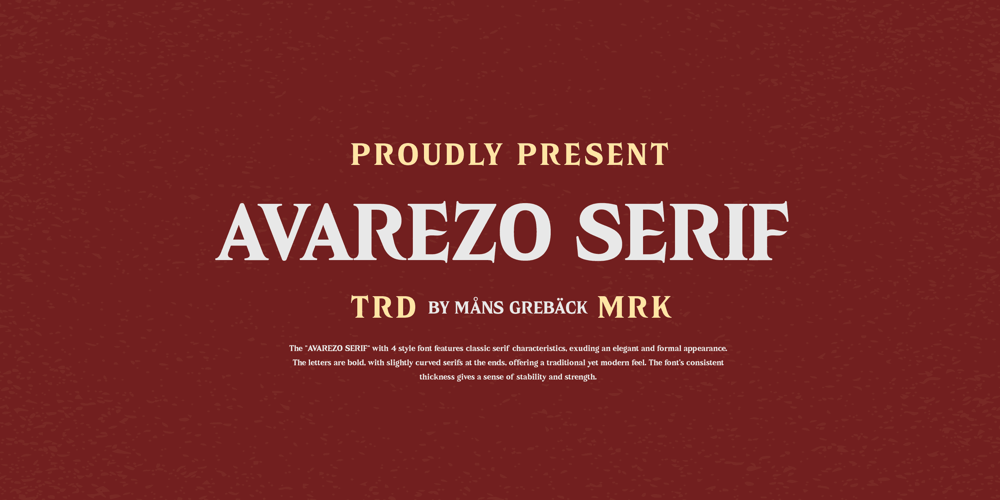
Avarezo Serif Font Family was designed by Måns Grebäck and published by Mans Greback. Avarezo Serif contains 4 styles and family package options. Avarezo Serif is a bold and commanding typeface, built on the foundations of classic serif styles. Its strong, heavy strokes give it a sense of weight and confidence, making it ideal for statements that demand attention. The font blends Italian elegance with vintage charm, creating a timeless appeal that suits both modern and historical design contexts. Each letter is crafted with clarity and precision, ensuring legibility even at smaller sizes, while the boldness ensures impact in larger displays.This typeface is perfect for evoking a sense of tradition and sophistication, yet it remains versatile enough for a wide range of uses. With a clear, structured design, Avarezo Serif is both practical and stylish, rooted in classic typographic forms but refreshed for contemporary needs.The font is built with advanced OpenType functionality and guaranteed top-notch quality, containing stylistic and contextual alternates, ligatures, and more automatic and manual features; all to give you full control and customizability. It has extensive lingual support, covering all Latin-based languages, from Northern Europe to South Africa, from America to Southeast Asia. It contains all characters and symbols you’ll ever need, including all punctuation and numbers.Designed by Mans Greback, Avarezo Serif reflects his passion for blending tradition with modern design, creating a font that stands strong while remaining refined and elegant.